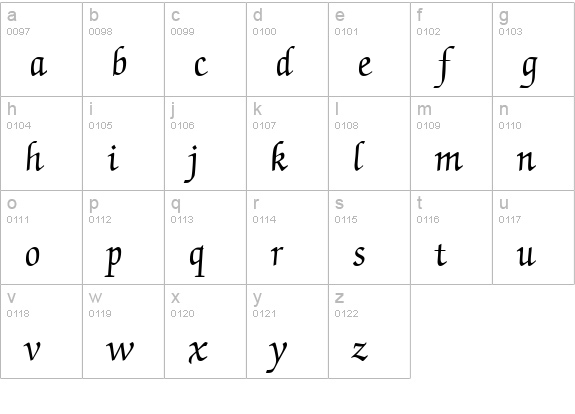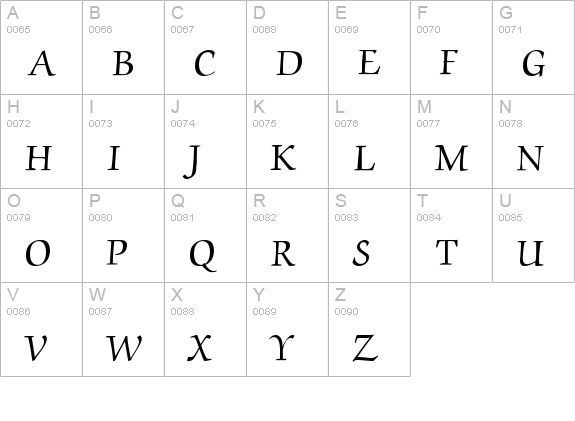
QTChanceryType Regular Font Details
QTChanceryType Regular is the standard, neutral variant in the QTChanceryType typeface family \xE2\x80\x94 well suited to general body text, paragraphs, and standard typographic work.
QTChanceryType Regular is a stunning font that exudes elegance and sophistication. Its delicate curves and graceful strokes make it perfect for adding a touch of class to any project. Whether you are creating invitations, wedding stationery, or designing a logo, this font will surely make a lasting impression. With its classic yet contemporary design, QTChanceryType Regular effortlessly combines tradition with modernity. It is a versatile font that can be used for both formal and informal purposes, adding a touch of refinement to any design. One of the best things about QTChanceryType Regular is that it is freely available to download at FontsMarket.com. This means that you can easily access this beautiful font without having to spend a penny. It is a fantastic opportunity to enhance your creative work with a high-quality font that is not only visually appealing but also easily accessible. So why wait? Take advantage of the freedom to download QTChanceryType Regular at FontsMarket.com and elevate your designs to new heights. Whether you are a professional designer or a hobbyist, this font is a must-have in your collection. Embrace the elegance and sophistication of QTChanceryType Regular and let your creativity soar.